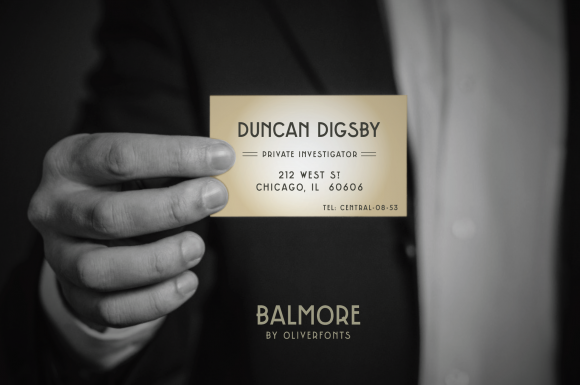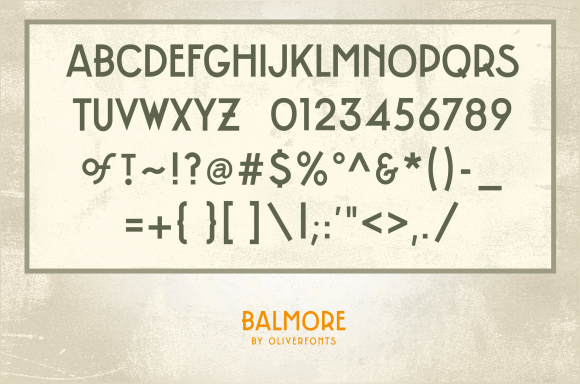
Balmore Font: A Timeless Sans Serif for Modern Designs
Are you on the hunt for a font that exudes a strong Art Deco vibe with a modern twist? Look no further than Balmore Font, a simple and neat sans serif font that’s perfect for adding a touch of authenticity and originality to your next project. In this article, we’ll dive into the world of Balmore Font, exploring its unique features, design inspiration, and uses, as well as provide tips for designers and crafters looking to make the most of this versatile typeface.
The Inspiration Behind Balmore Font
Balmore Font is a throwback to the glamorous Art Deco era, characterized by its geometric shapes, clean lines, and ornate details. However, this font also boasts a distinctly modern feel, making it an excellent choice for designers seeking to create something fresh and contemporary. The result is a unique blend of classic sophistication and modern flair that’s sure to elevate any design.
Design Features of Balmore Font
So, what makes Balmore Font so special? Here are just a few of its standout features:
- All-caps design: Balmore Font is an all-caps font, perfect for creating bold, eye-catching headlines and titles.
- Sans serif: The clean, sans serif design of Balmore Font ensures that your text remains clear and legible, even at smaller sizes.
- Geometric shapes: The font’s geometric shapes and lines pay homage to the Art Deco era, while also providing a modern, streamlined aesthetic.
- Simple and neat: Despite its bold design, Balmore Font remains surprisingly simple and neat, making it easy to pair with other fonts and design elements.
Uses for Balmore Font
Balmore Font is an incredibly versatile typeface, suitable for a wide range of design projects. Here are just a few ideas to get you started:
- Headings and titles: Use Balmore Font to create bold, attention-grabbing headings and titles for your website, blog, or marketing materials.
- Branding and logos: The font’s unique blend of Art Deco and modern styles makes it an excellent choice for branding and logo design.
- Packaging and labels: Add a touch of sophistication to your packaging and labels with Balmore Font.
- Signage and displays: The font’s clean, sans serif design makes it perfect for use on signage and displays.
Ready to start working with Balmore Font? Here are a few tips to help you get the most out of this amazing typeface:
- Experiment with pairings: Balmore Font pairs well with a wide range of other fonts, so don’t be afraid to experiment and find the perfect combination for your design.
- Play with sizes: The font’s bold design makes it perfect for use at larger sizes, but it also remains legible at smaller sizes.
- Add a pop of color: Use Balmore Font to add a pop of color and visual interest to your design.
- Get creative with effects: Try adding effects like shadows, gradients, or textures to give your Balmore Font design an extra boost.